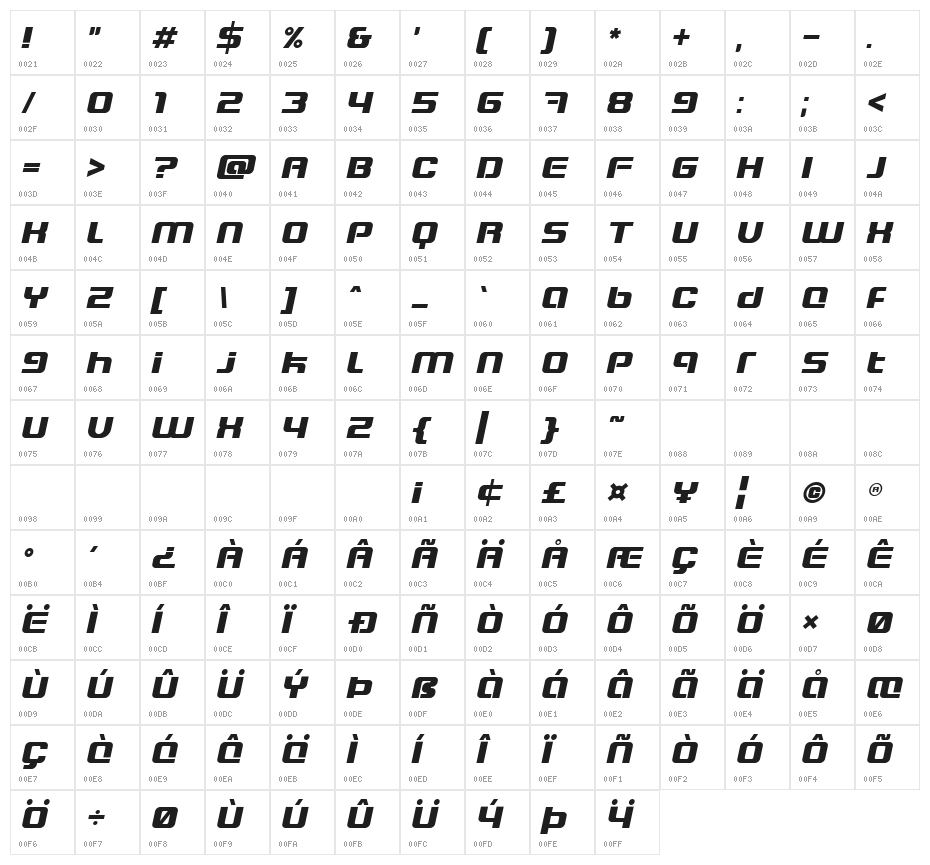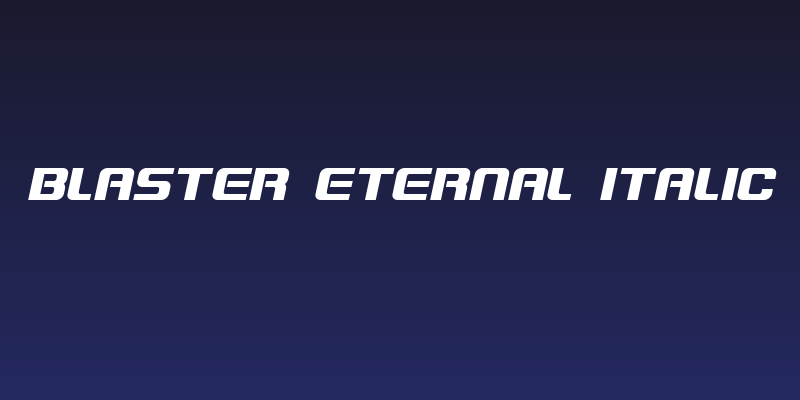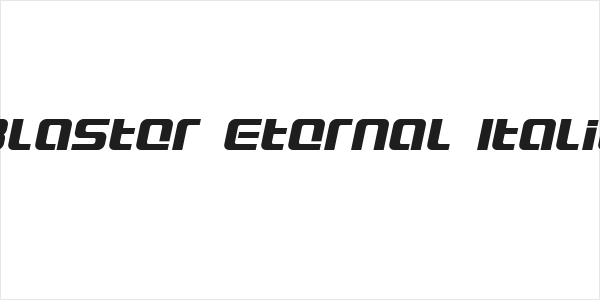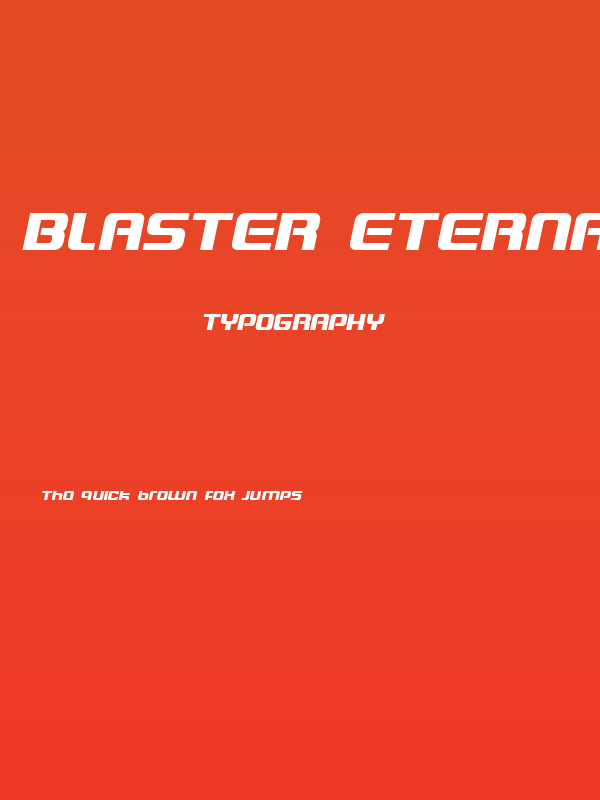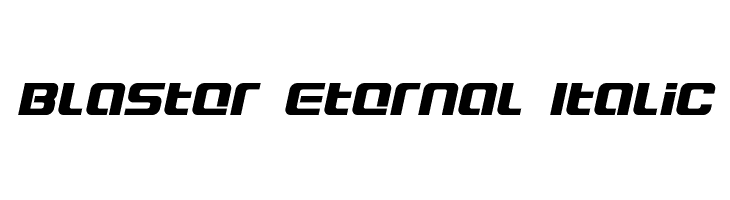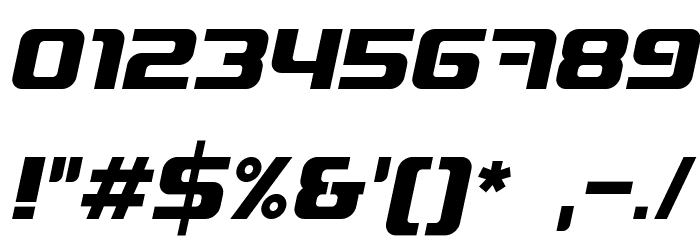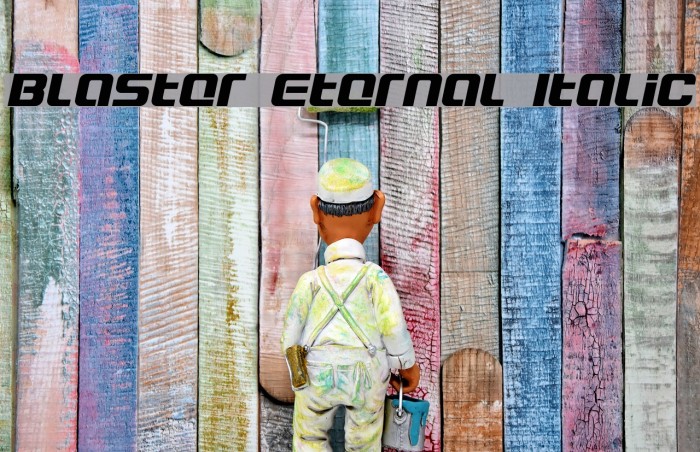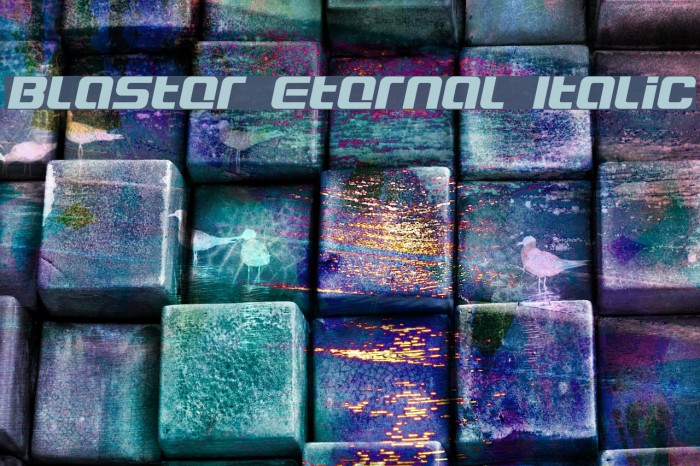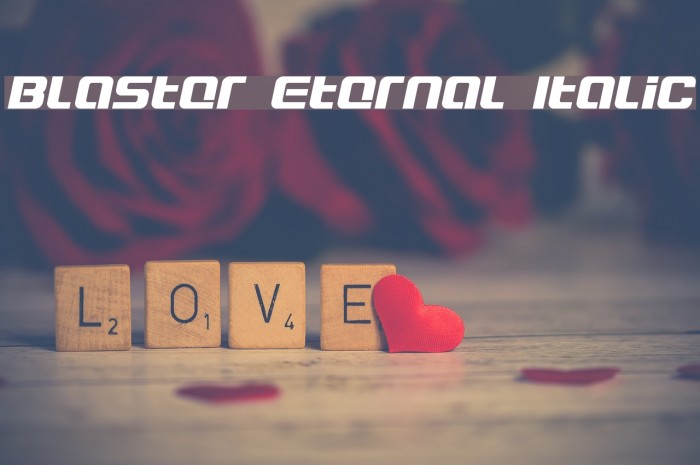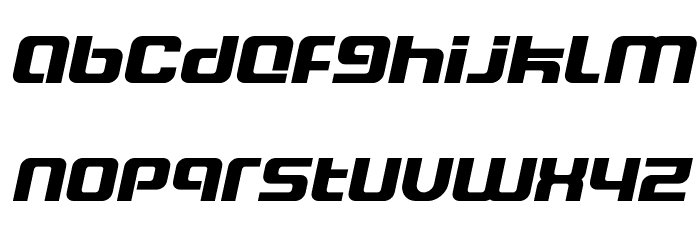
Blaster Eternal Italic Font
Blaster Eternal Italic Description
This font features a bold, italicized style with a futuristic and dynamic appearance. The characters are slightly slanted, giving a sense of motion and speed. The strokes are thick and consistent, providing a strong visual impact. The design includes rounded edges and smooth curves, contributing to its modern and sleek look. The uppercase and lowercase letters maintain a uniform style, while the numerals and special characters complement the overall aesthetic. This font is ideal for projects that require a bold and energetic feel.
| Use Case | Logos, Headlines, Posters |
| Proposed Projects | Ideal for branding, sports team logos, video game titles, and sci-fi themed designs. |